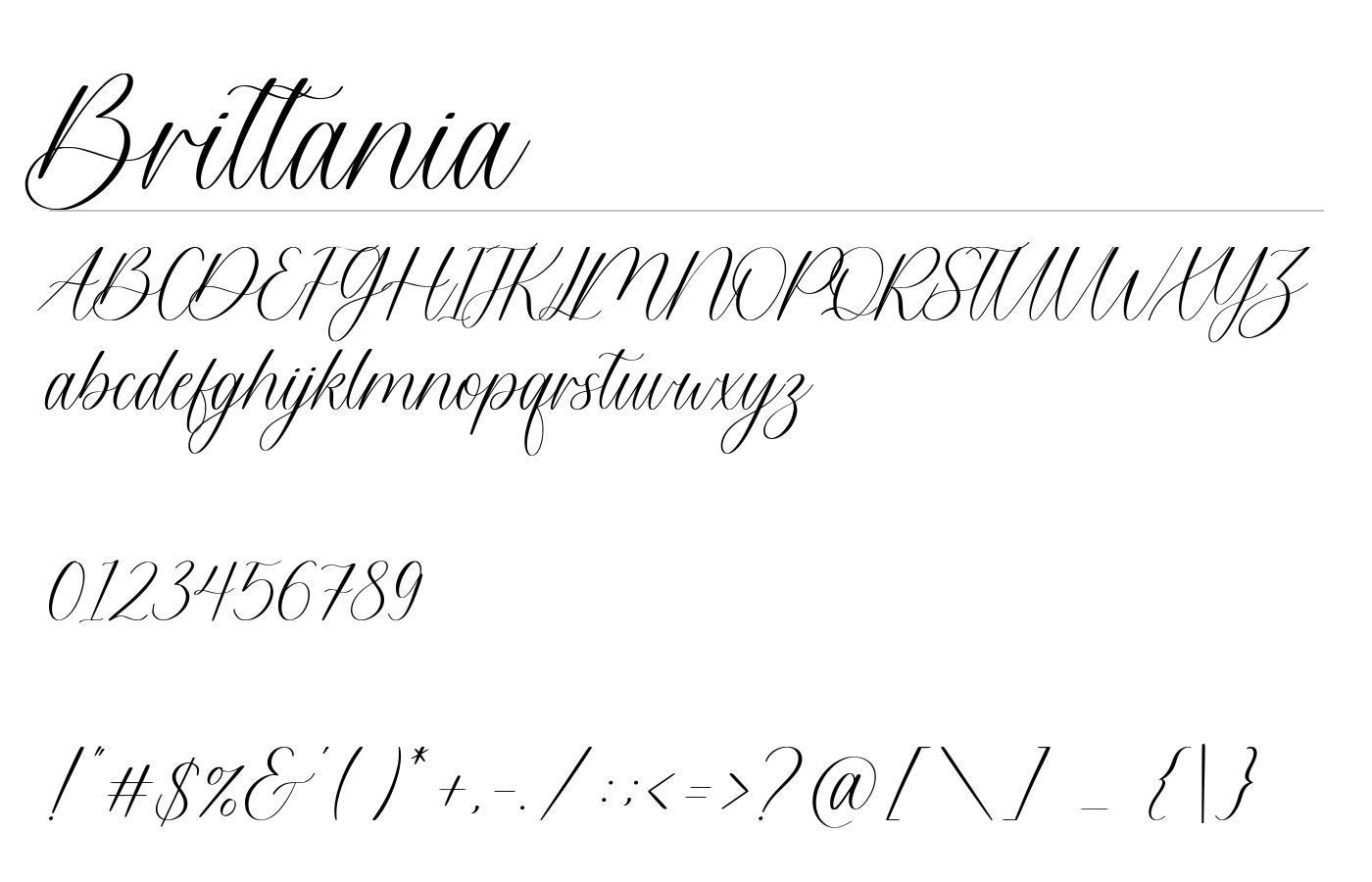
Brittania is an elegant script font characterized by its thin, delicate strokes and flowing, cursive letterforms that exude sophistication and grace. Its high contrast, slender shape, and stylish swashes make it ideal for luxury branding, wedding invitations, and upscale editorial projects where a refined, romantic aesthetic is desired. This font's airy and decorative style works best for decorative headlines and logos rather than body text, adding a touch of timeless beauty to creative designs.
Brittania Font